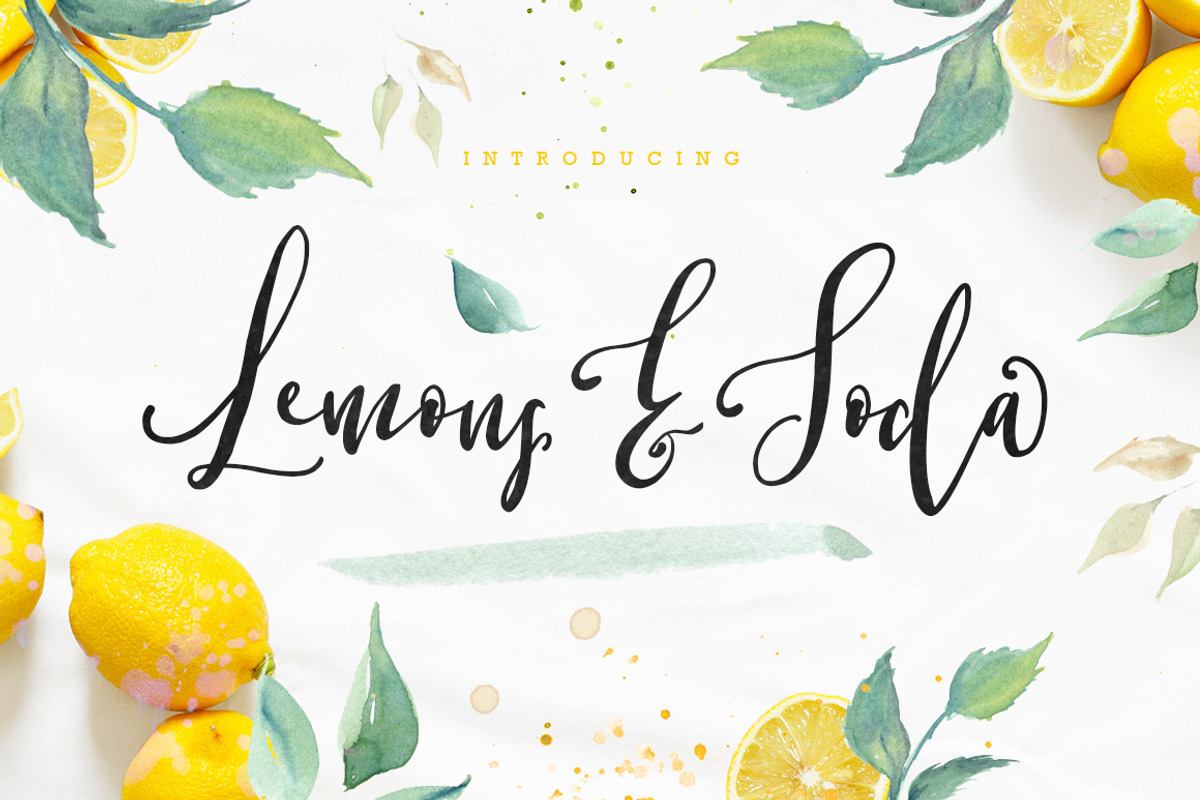
Lemons & Soda Script Font Free Download
Lemons & Soda Script Font Free Download is a playful and bubbly script typeface that exudes fun, energy, and a sense of charm. With its smooth curves, lively strokes, and casual feel, this font is perfect for branding, logos, packaging, social media posts, invitations, and more. Its friendly and approachable design makes it a great choice for creative projects that want to feel light-hearted and full of personality.
Whether you're working on a quirky brand, summer-themed designs, or a fun event invitation, Lemons & Soda Script Font Free Download adds a refreshing, handwritten touch that brings warmth and joy to your typography.
Bring a burst of joy to your designs with Lemons & Soda Script Font Free Download, and give your typography a fun, energetic vibe that pops! Perfect for anyone seeking a lively, creative script font.